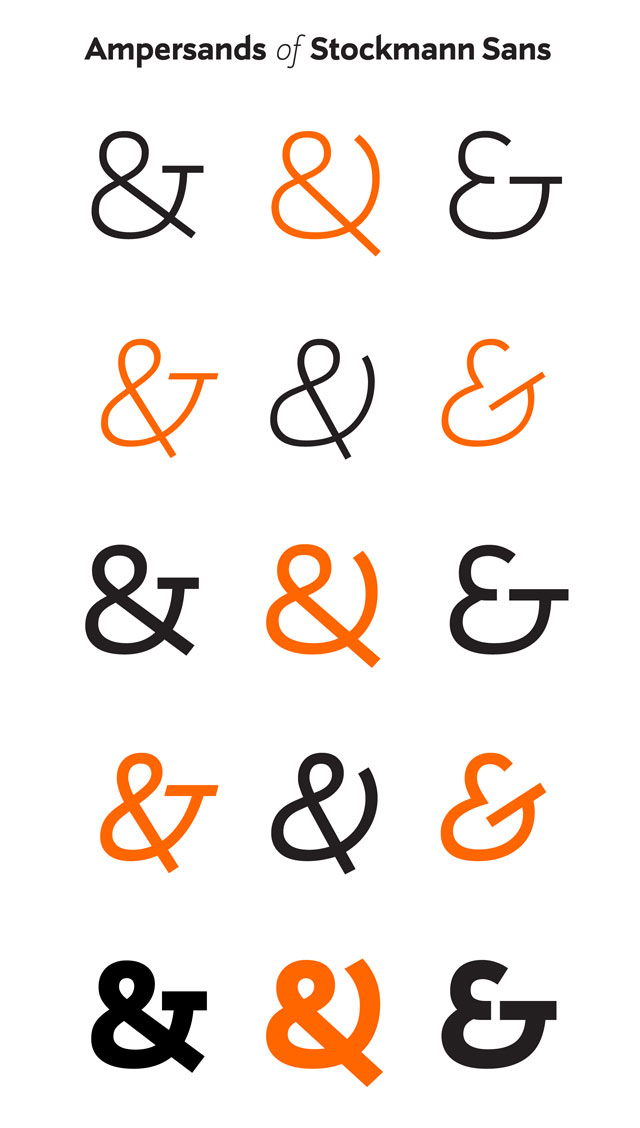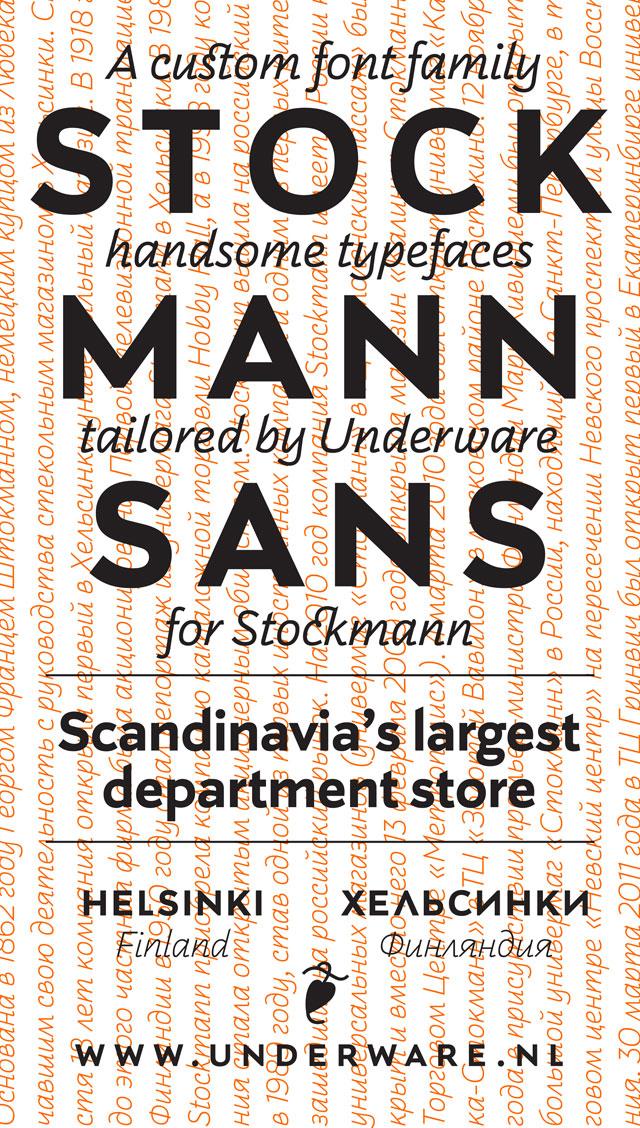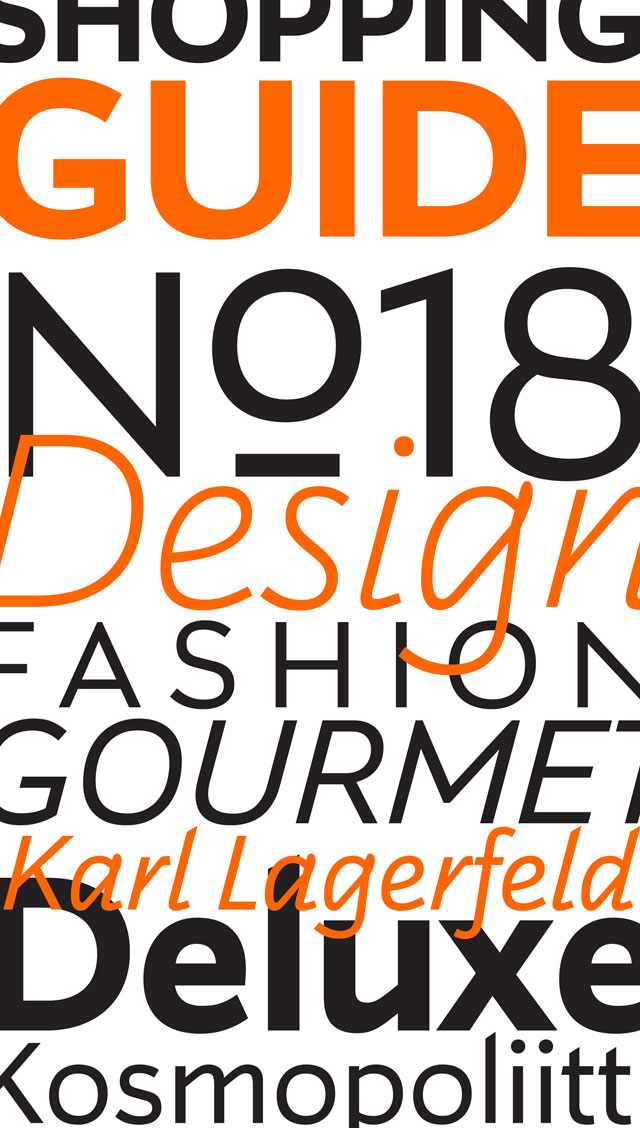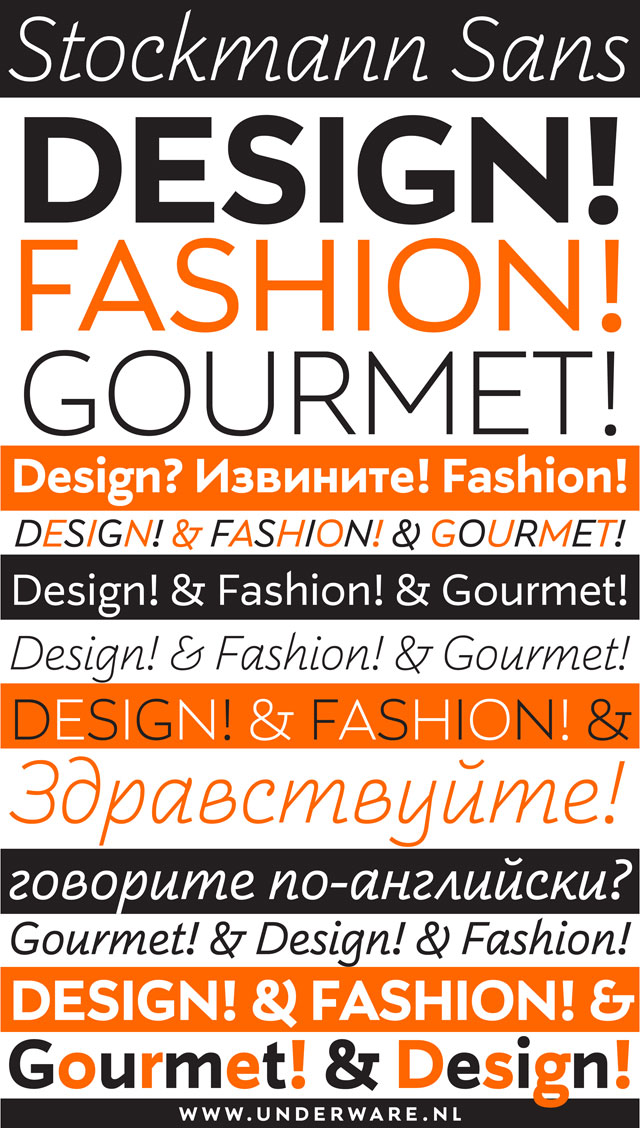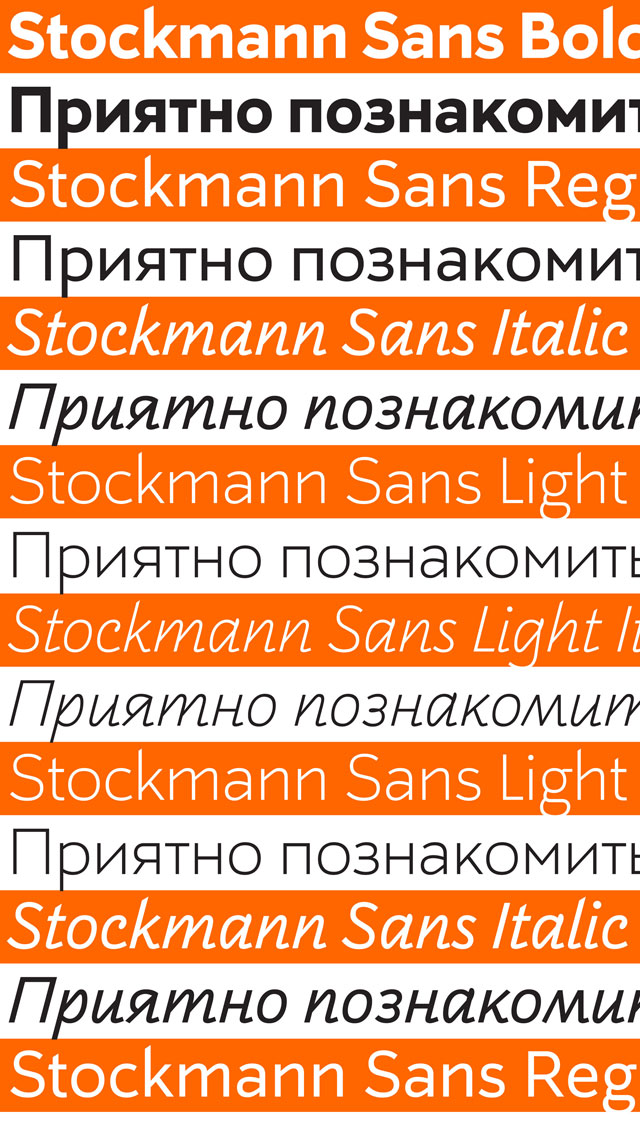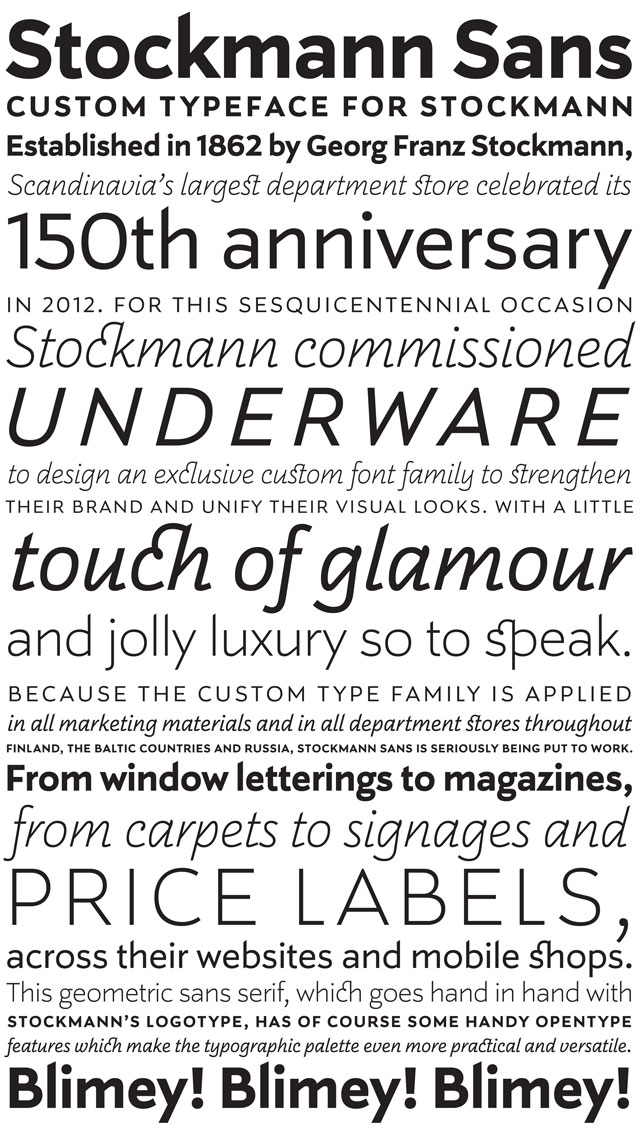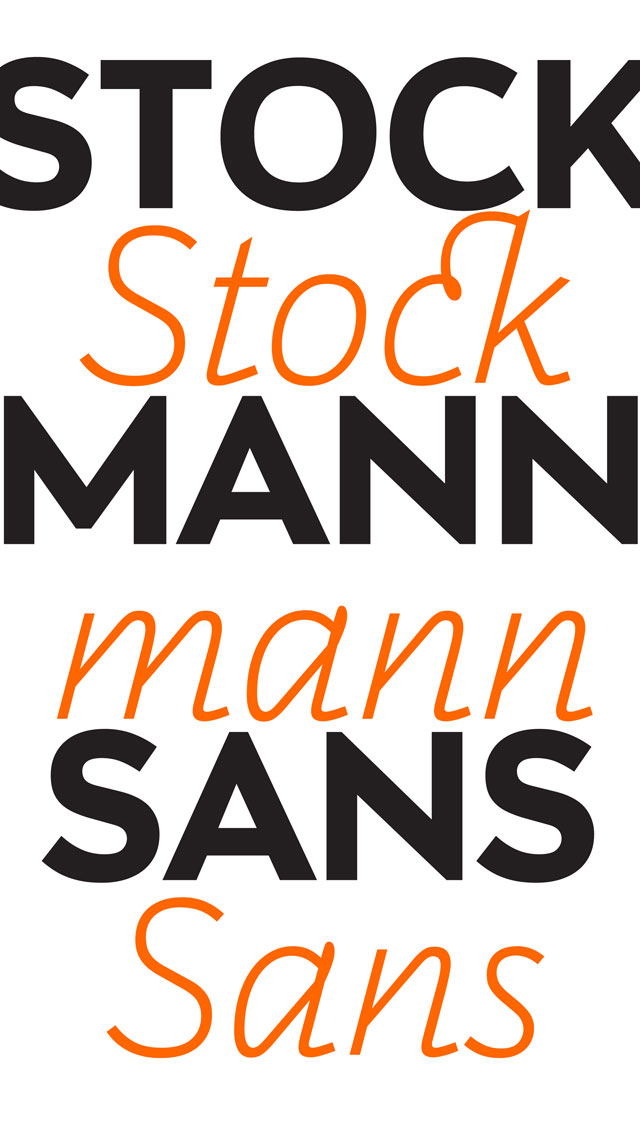
Stockmann Sans
Three weights, geometric sans, elegant italics, Latin & Cyrillics, from shop windows to price tags to coffee cups, from Helsinki to Moscow. Please meet Stockmann Sans, a custom font family by Underware for Scandinavia’s largest department store: